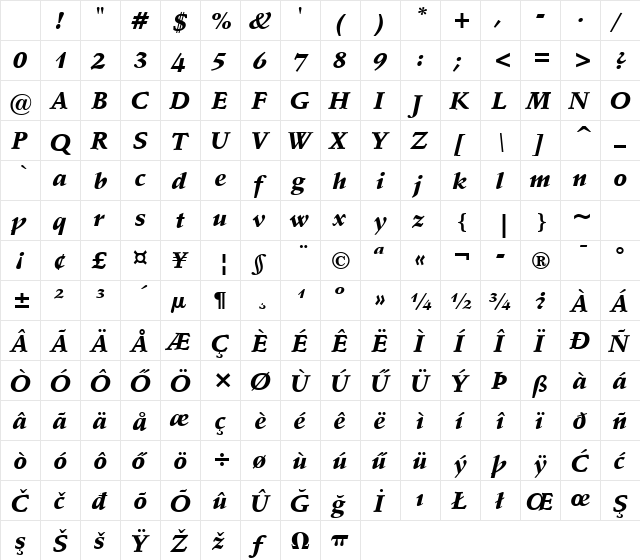
PFL-Schneidler Blk is a composed and adaptable typeface that performs quietly and consistently across a wide range of design contexts. The slanted form adds forward momentum and visual energy.
Pro Tip: Use PFL-Schneidler Blk for emphasis, pull quotes, and subheadings where its slanted energy can add rhythm to the layout.